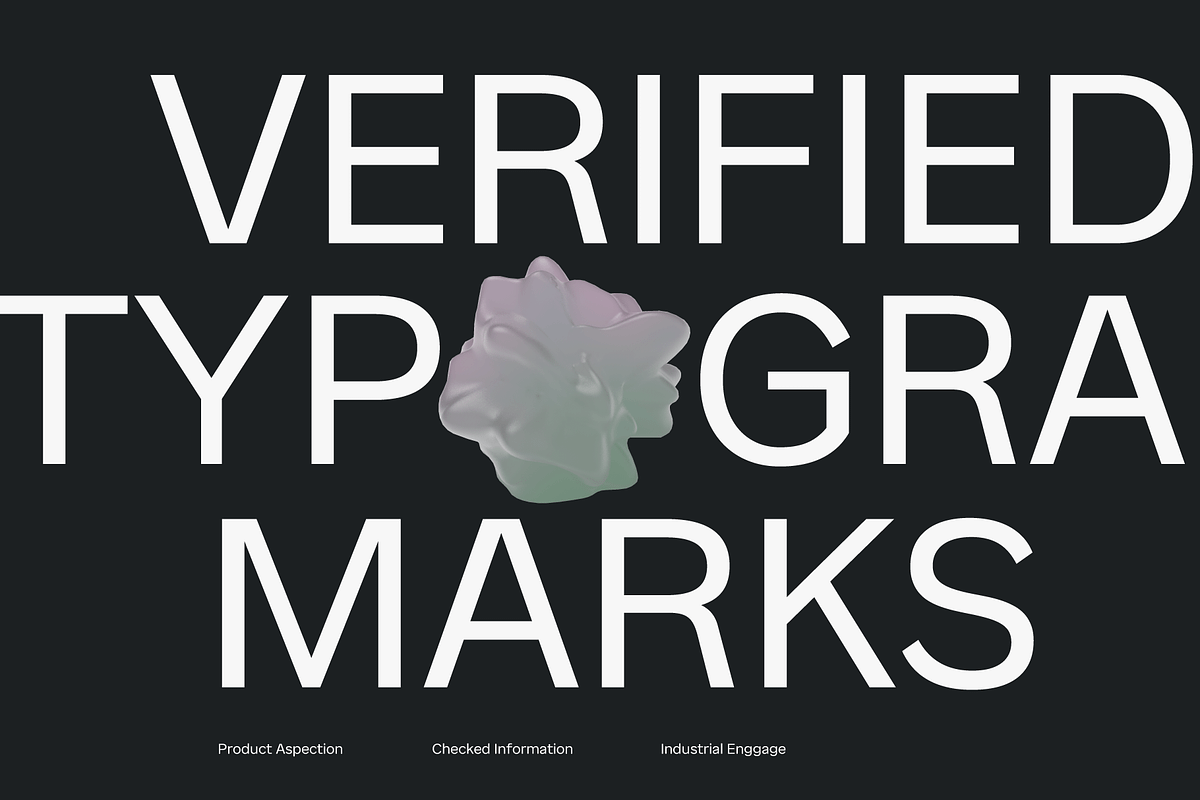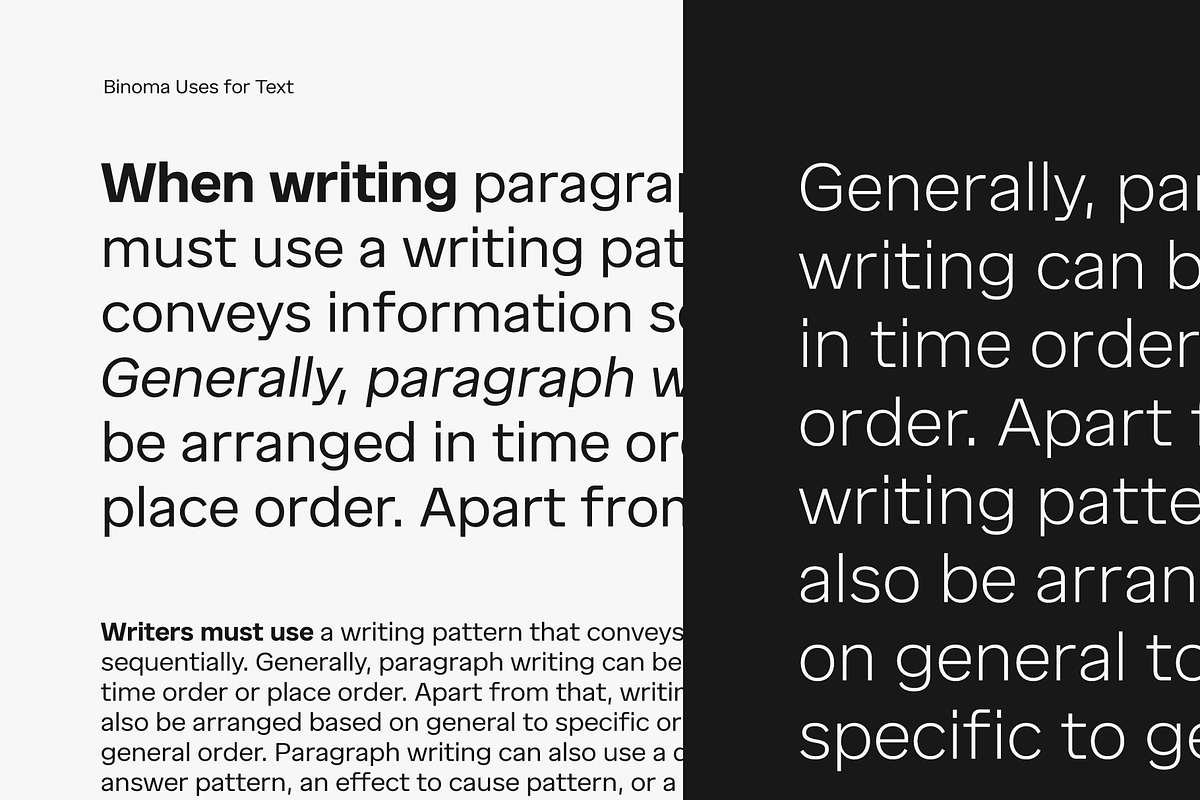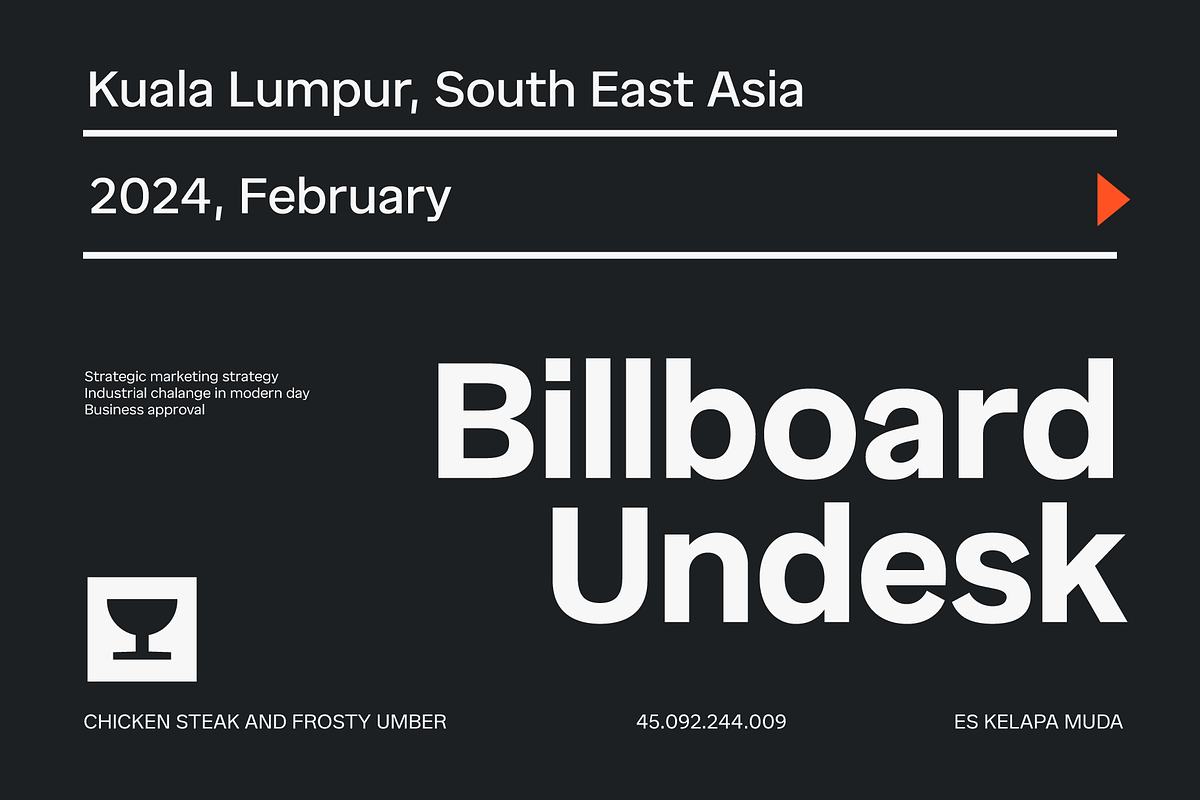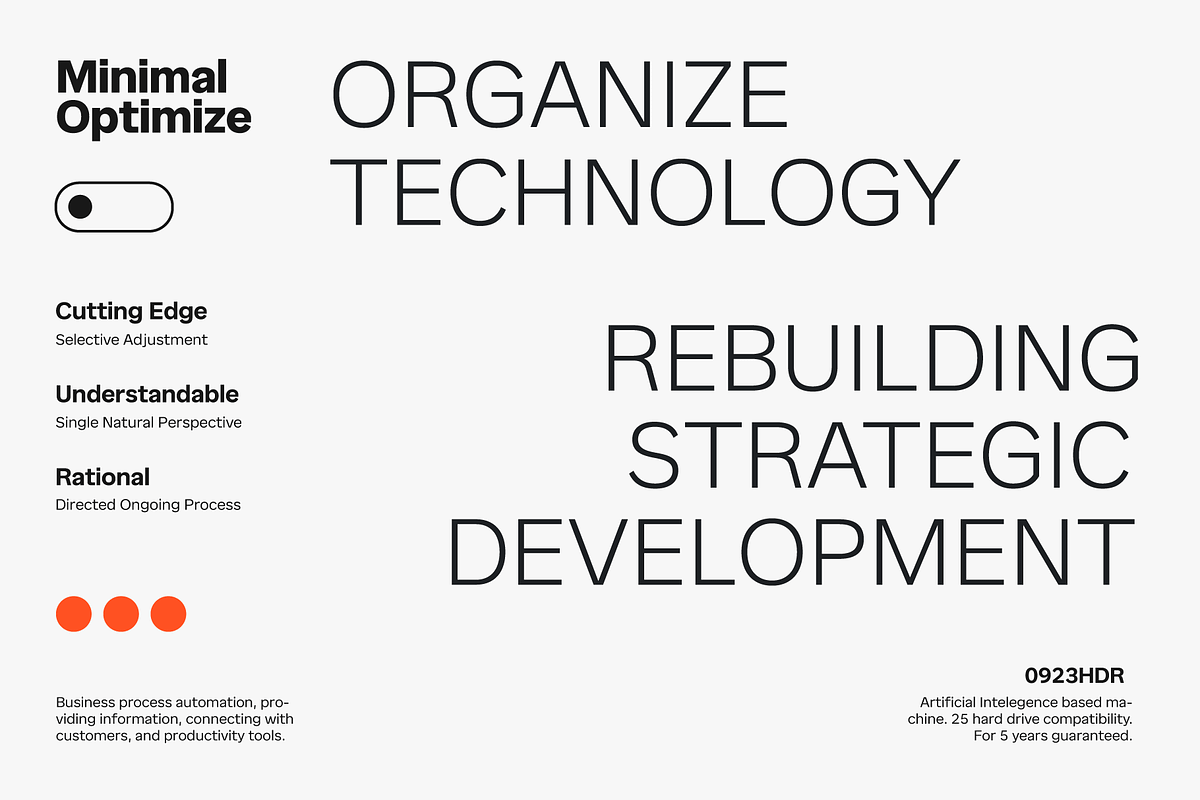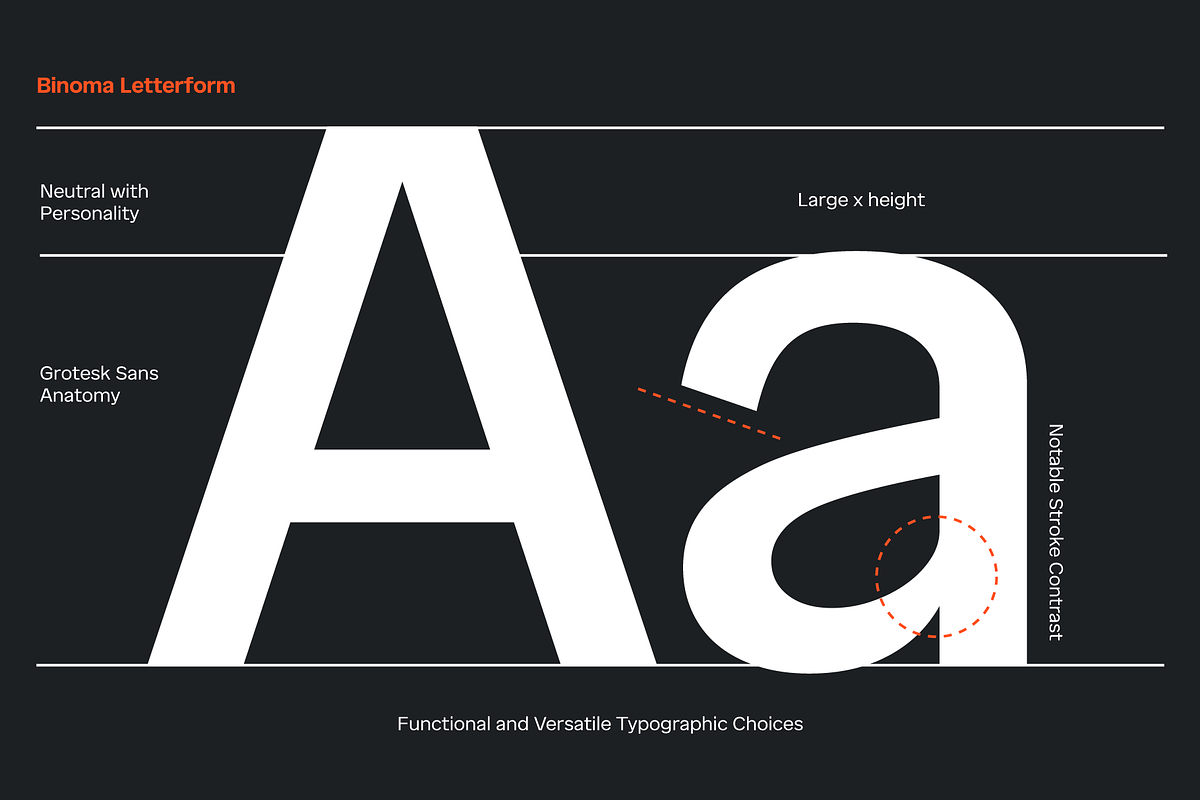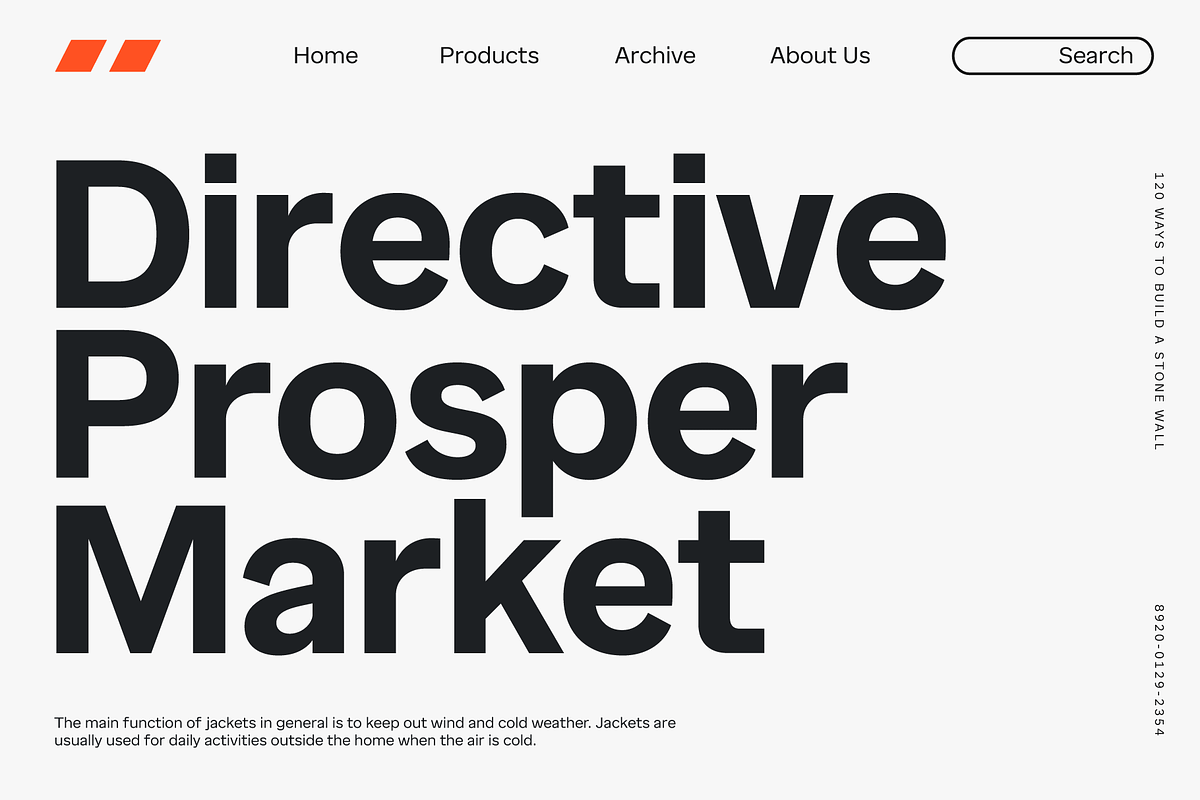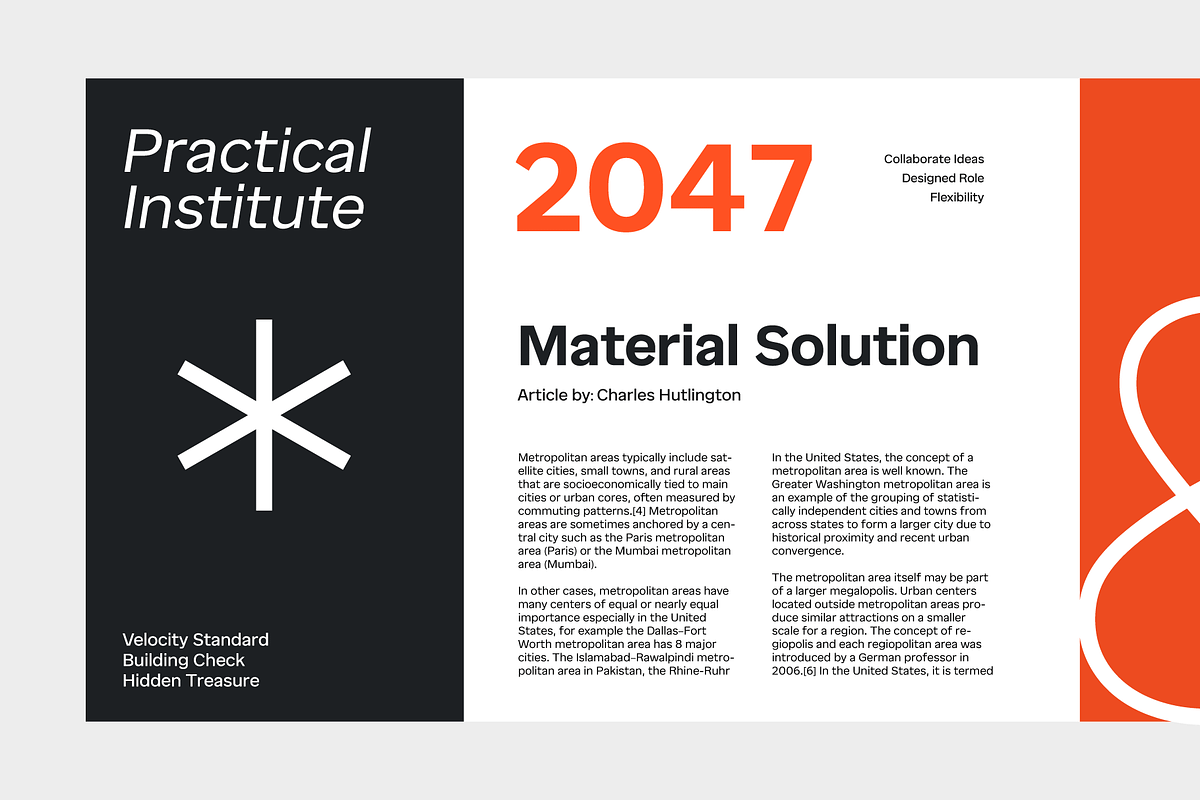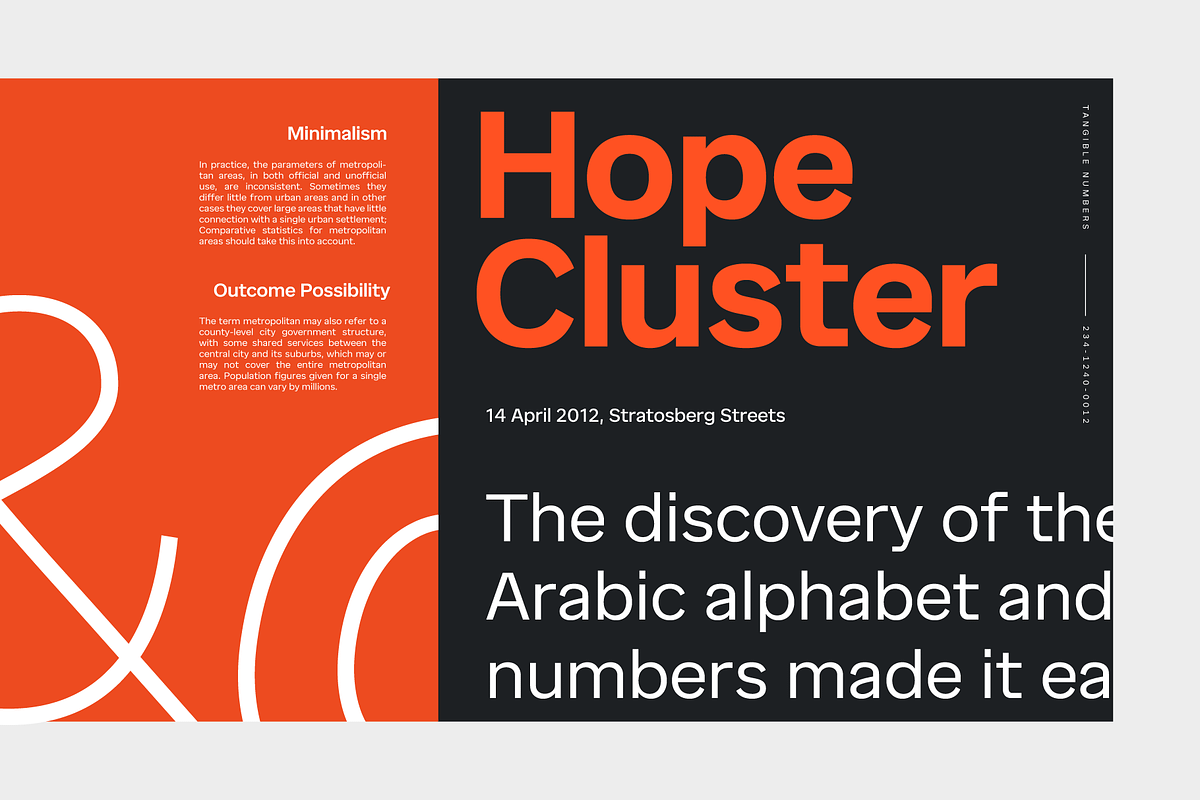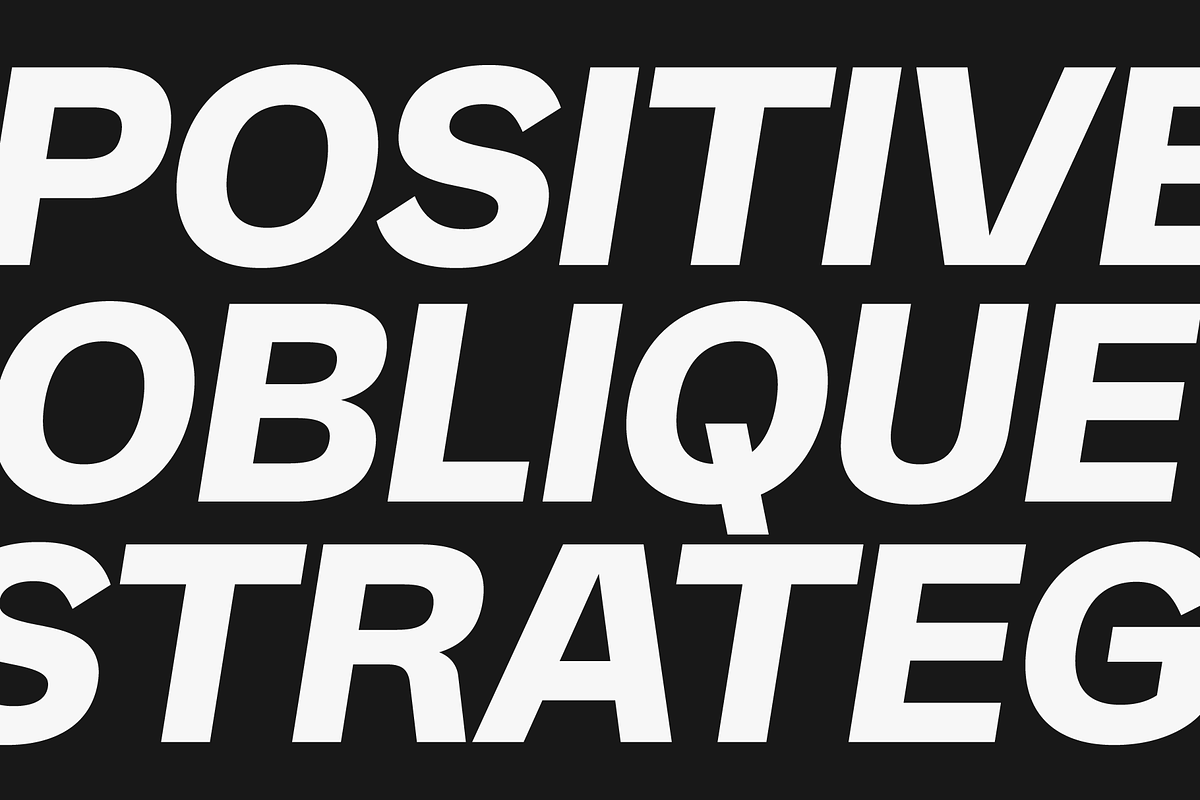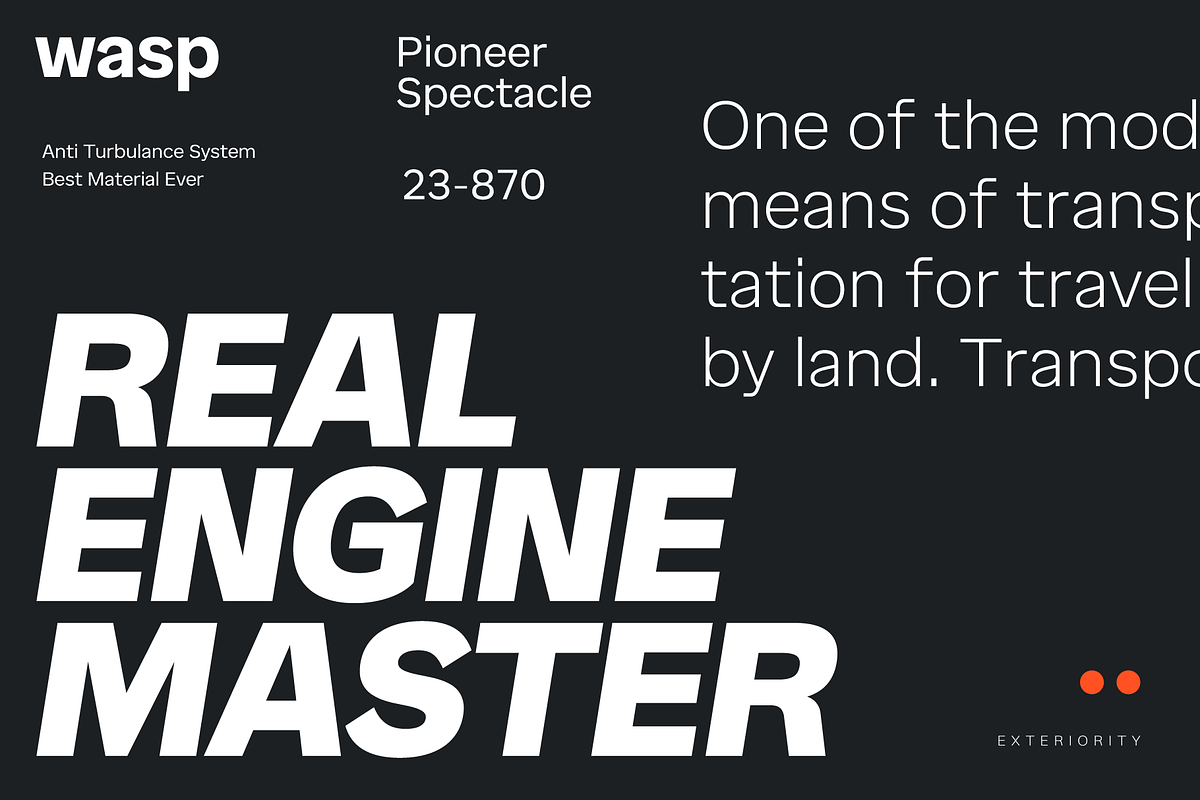
Binoma; Grotesk Font Family
Binoma fonts stands as a formidable grotesk font family. Designed in 2024 by Eko Bimantara, Binoma is distinguished by its sans-serif style that embodies modernity and versatility. Despite its neutral foundation, Binoma boasts a subtle personality that adds character to any design it graces. Ideal for a myriad of applications, Binoma finds its place in display settings, large headers, and various layout designs. Its adaptability extends to logos, websites, brand identities, product packaging, and even text, making it a valuable asset for web fonts and broad graphic design projects. Binoma is perfect for making a bold statement, seamlessly integrating into creative endeavors.
Binoma is an excellent choice for designers seeking a typeface that effortlessly bridges the gap between neutrality and distinctive character, between industrial and humanist nuance. From impactful displays to intricate layouts, Binoma’s adaptability shines through, making a bold statement and establishing its position as a reliable companion for a wide spectrum of creative applications.